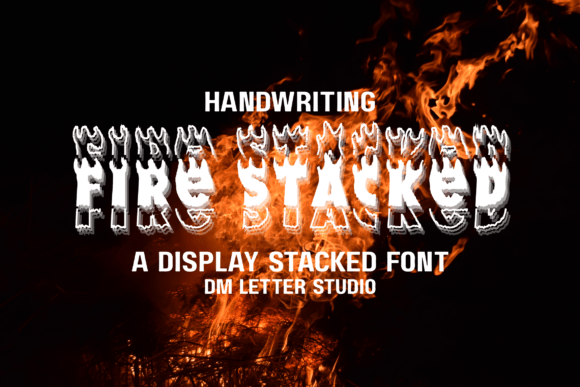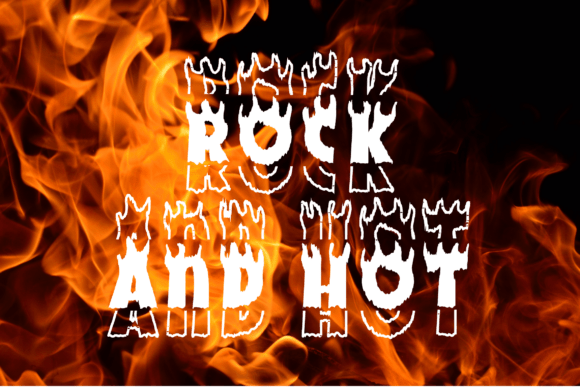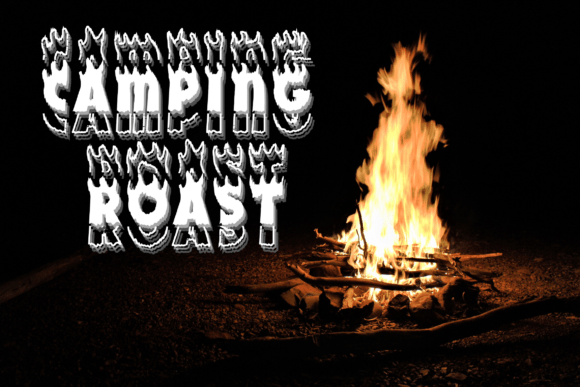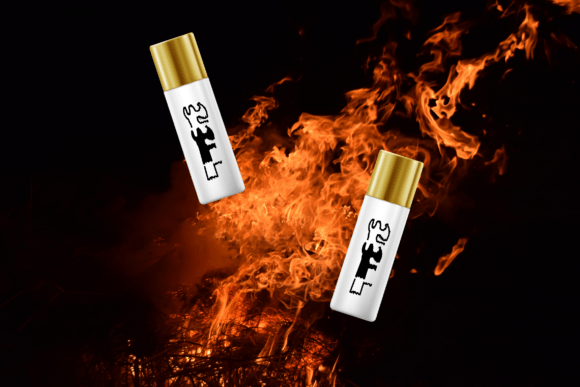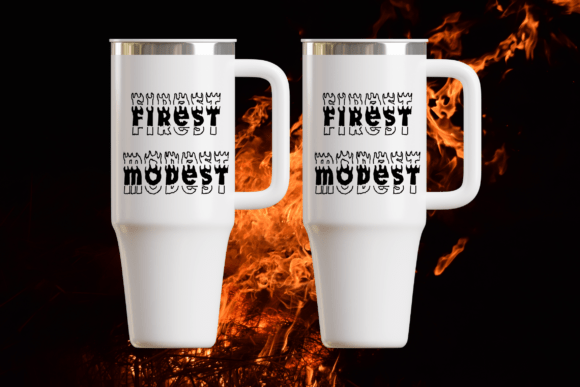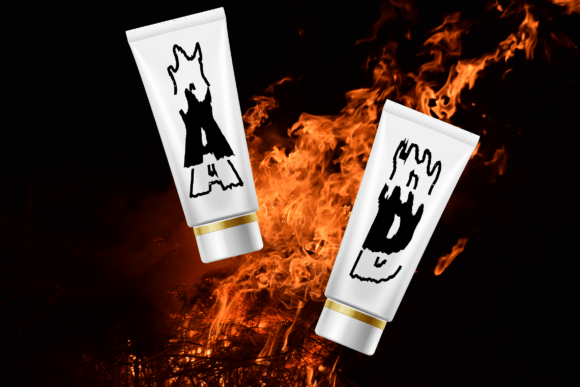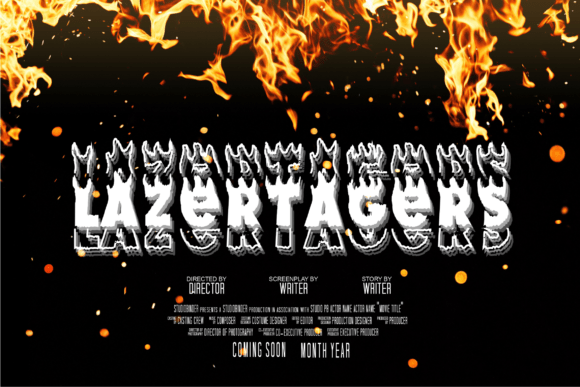
Ignite Your Designs with the Unbridled Passion of Handwriting Fire Stacked Font
As a designer, have you ever been in a creative moment where the words just flow effortlessly onto the page, and the entire project starts to come alive? It’s that rush of adrenaline and pure excitement that drives us to push the boundaries of our craft. For those moments, you need a font that can match the intensity of your vision. That’s where the Handwriting Fire Stacked Font comes in – a dramatic, handwritten font that’s designed to add a spark of passion to your designs.
This font is not just a tool, but a catalyst that can elevate your typography to new heights. With its authentic, explosive feel, the Handwriting Fire Stacked Font is perfect for striking logos, edgy posters, and distinctive branding. Whether you’re working on album art or creating impactful statements, this font is sure to leave a lasting impression.
- Unique Characteristics: The Handwriting Fire Stacked Font features a unique, hand-drawn style with a stacked design, giving it a distinctive and eye-catching appearance.
Designer Review: Handwriting Fire Stacked Font
I was really excited to dive into the Handwriting Fire Stacked Font, but I have mixed feelings about it. Let’s start with what works well: ✨ The font has a unique, fiery vibe that’s perfect for adding a touch of personality to your designs. The stacked letters are a nice touch, and they add a sense of movement and energy to the font. ✨ The font also has a great range of weights and styles, from light to bold, which makes it versatile and easy to use.
However, there are a few limitations to consider: ⚠️ The font can be a bit difficult to read at small sizes, and the irregular letterforms can make it tricky to pair with other fonts. ⚠️ Additionally, the font is not suitable for large blocks of text, as it can become overwhelming and difficult to scan.
Overall, I think the Handwriting Fire Stacked Font is a great addition to any designer’s toolkit. It’s perfect for adding a touch of personality to your designs, and it’s great for use in headings and titles. However, it’s not the best choice for large blocks of text or for use at small sizes.
Pros and Cons:
- Unique, fiery vibe ✨
- Stacked letters add movement and energy ✨
- Great range of weights and styles
- Difficult to read at small sizes ⚠️
- Irregular letterforms can make pairing with other fonts tricky ⚠️
- Not suitable for large blocks of text ⚠️
To get the most out of Handwriting Fire Stacked Font, try the following:
- Pair it with bold or italic fonts to create contrast.
- Use it for titles or headings to add a touch of whimsy.
Handwriting Fire Stacked Font is perfect for:
- Handmade or artisanal products.
- Children’s books or educational materials.
Alternatives to Handwriting Fire Stacked Font
Lobster Font is a unique, cursive font that can be used for headings and titles. It’s perfect for adding a touch of elegance and sophistication to designs. When to use: Use Lobster Font for formal invitations, luxury brand identities, or any design that requires a high-end feel.
Comparison: Lobster Font has a more polished and refined look compared to Handwriting Fire Stacked Font, which is more casual and playful. While both fonts are cursive, Lobster Font has a more even and consistent line height.